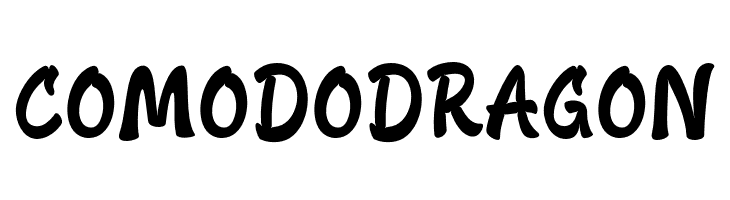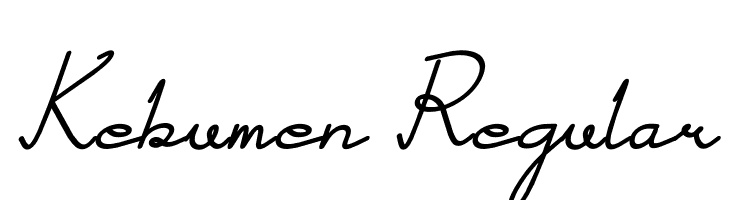
A sleek, extra light italic font with a modern and elegant design.
A playful, casual handwritten font with smooth, flowing curves.
An elegant and flowing script font with graceful curves and fluid strokes.
A bold, futuristic font with a semi-italic slant and angular design.
A bold, decorative font with a three-dimensional effect and intricate patterns.
A playful, handwritten font with fluid, interconnected strokes.
A lively handwritten font with fluid, organic strokes and a dynamic appearance.
A playful, bold handwritten font with thick, rounded strokes.
A bold, calligraphic font with sharp, angular strokes and a gothic influence.
A classic, oblique serif font with a Renaissance-inspired elegance.
设计师偏爱 Mont Blanc-Trial ExtraLight Italic, Long Story Short Demo Regular, Aqilla, Laser Corps Semi-Italic and Flamez Regular,因为其造型干净、适用范围广—— 从品牌识别到落地页、海报都能胜任。